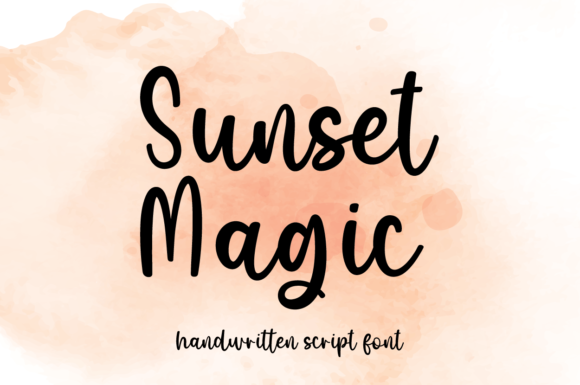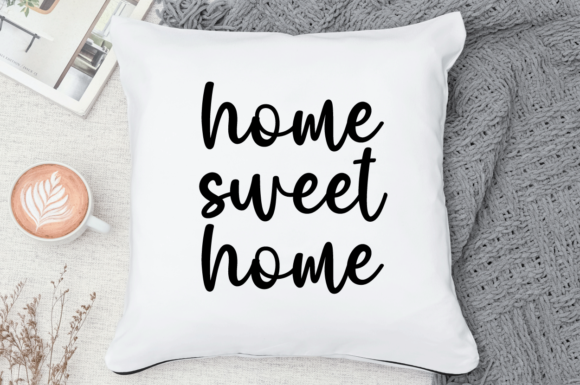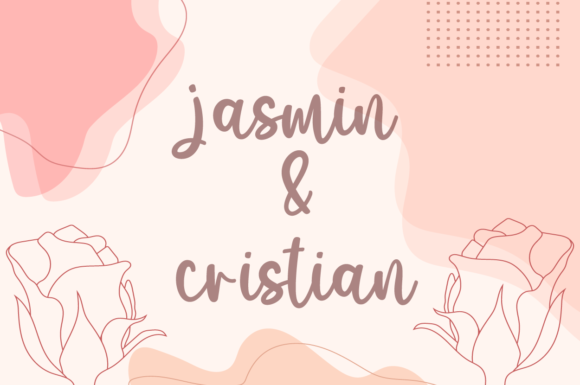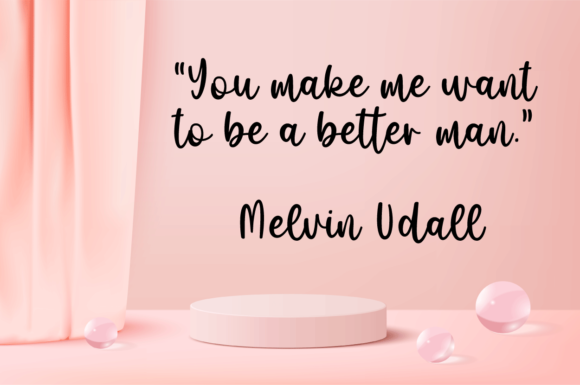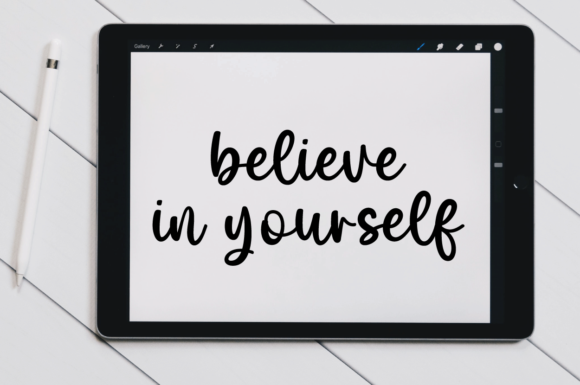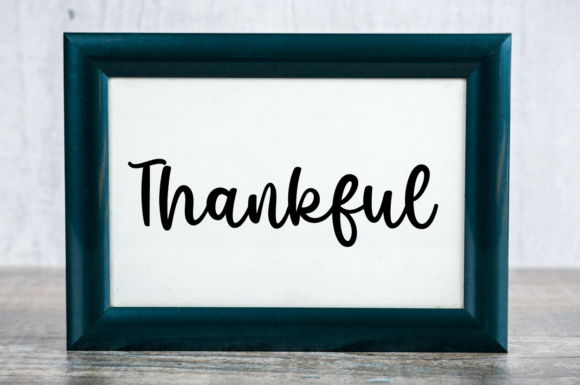
Sunset Magic Font
About Sunset Magic Font
Sunset Magic is a delicate and well-rounded handwritten font, perfect for crafty projects that need authentic typography! Use it for wedding invitations, birthday cards, personal branding, elegant logos, or more.